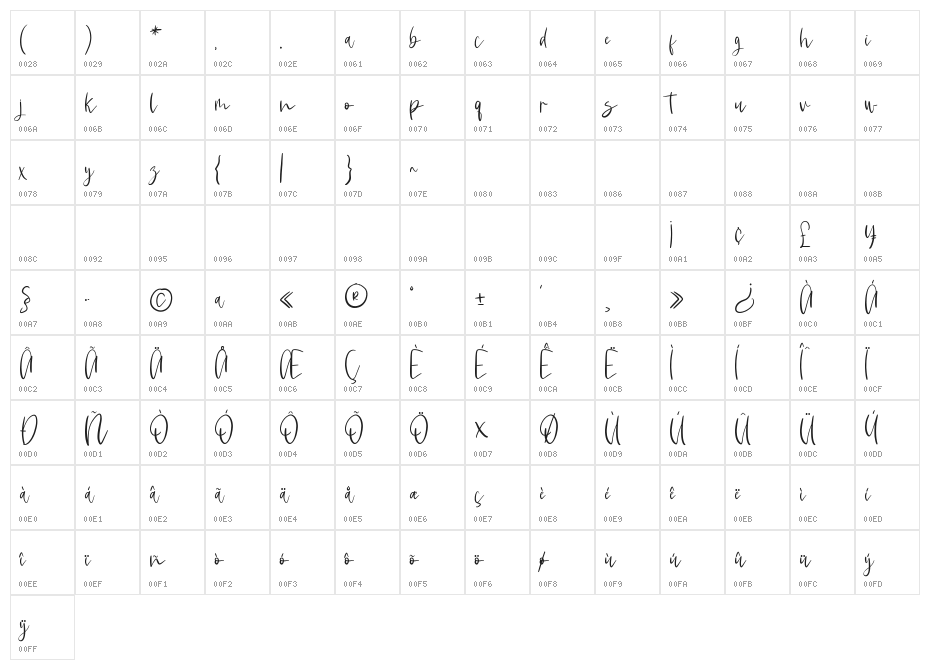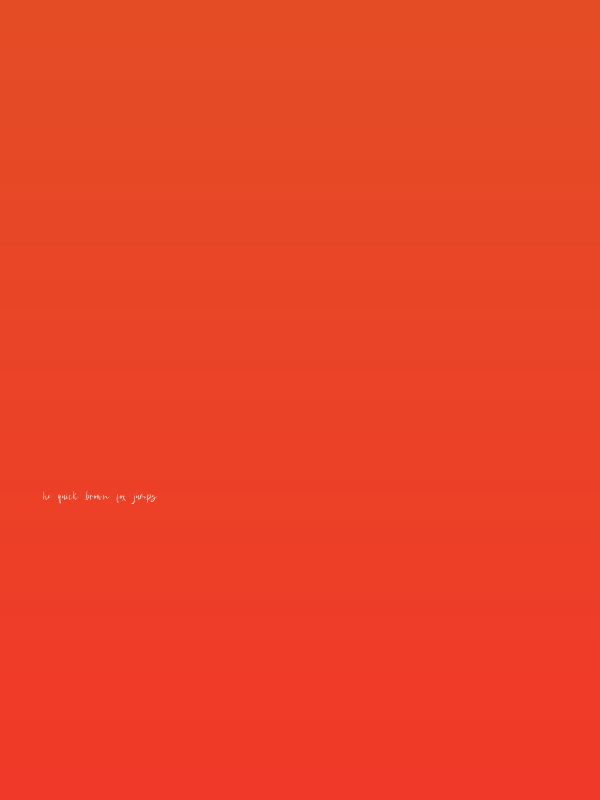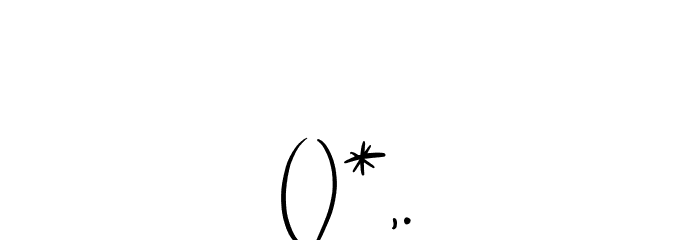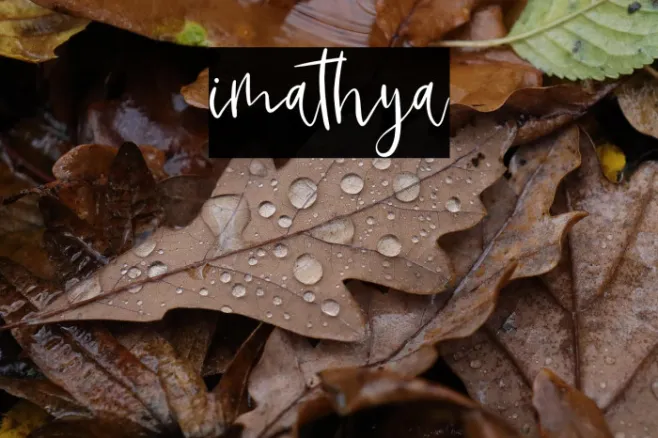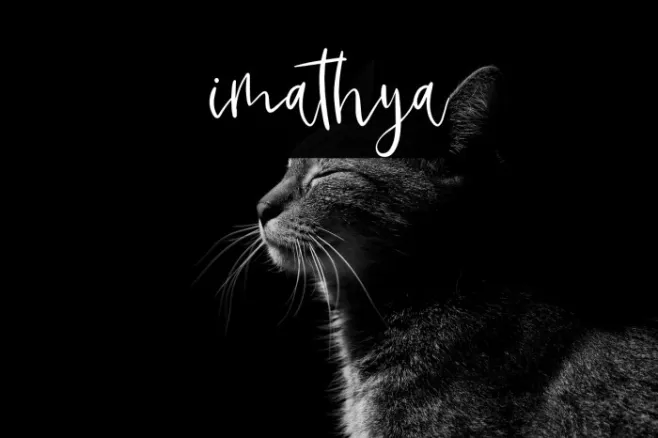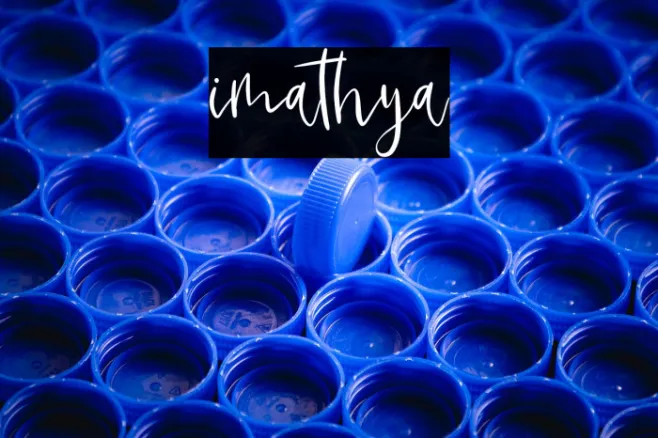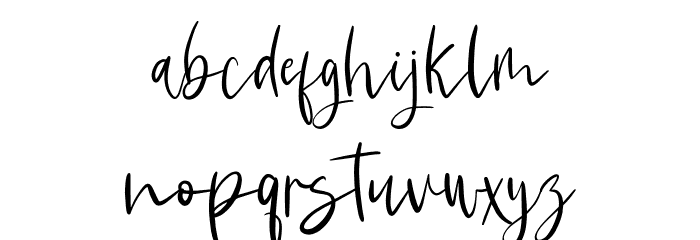
Simathya Font
Simathya Description
This font features a flowing, handwritten style with a casual and artistic flair. The letters are elegantly connected, giving it a cohesive and fluid appearance. The strokes vary in thickness, adding a dynamic and lively feel to the text. The lowercase letters have a playful bounce, while the uppercase letters maintain a consistent height, providing balance. The font exudes a personal touch, making it ideal for creative and informal projects. Its unique character shapes and smooth curves make it stand out, offering a sense of individuality and charm.
| Proposed Projects | Ideal for wedding invitations, greeting cards, personal branding, and artistic projects. |